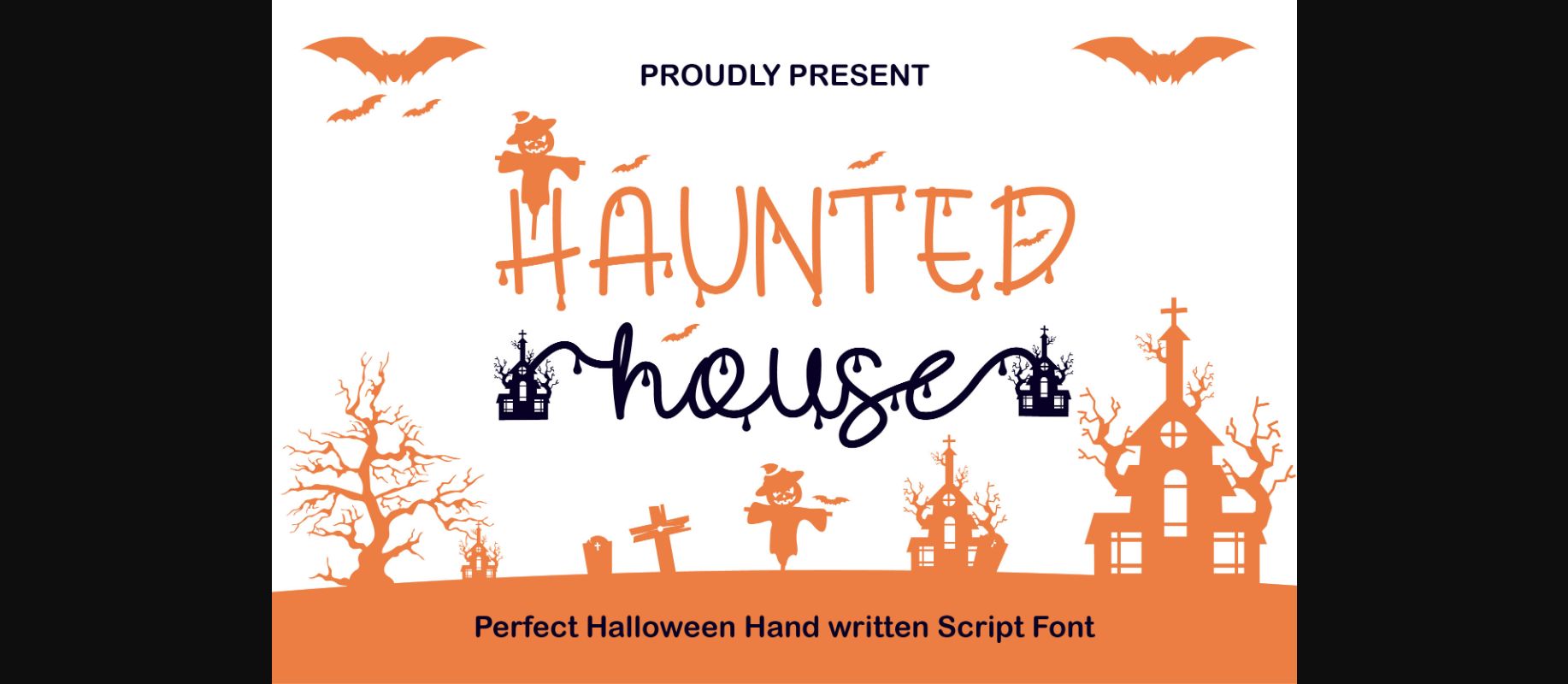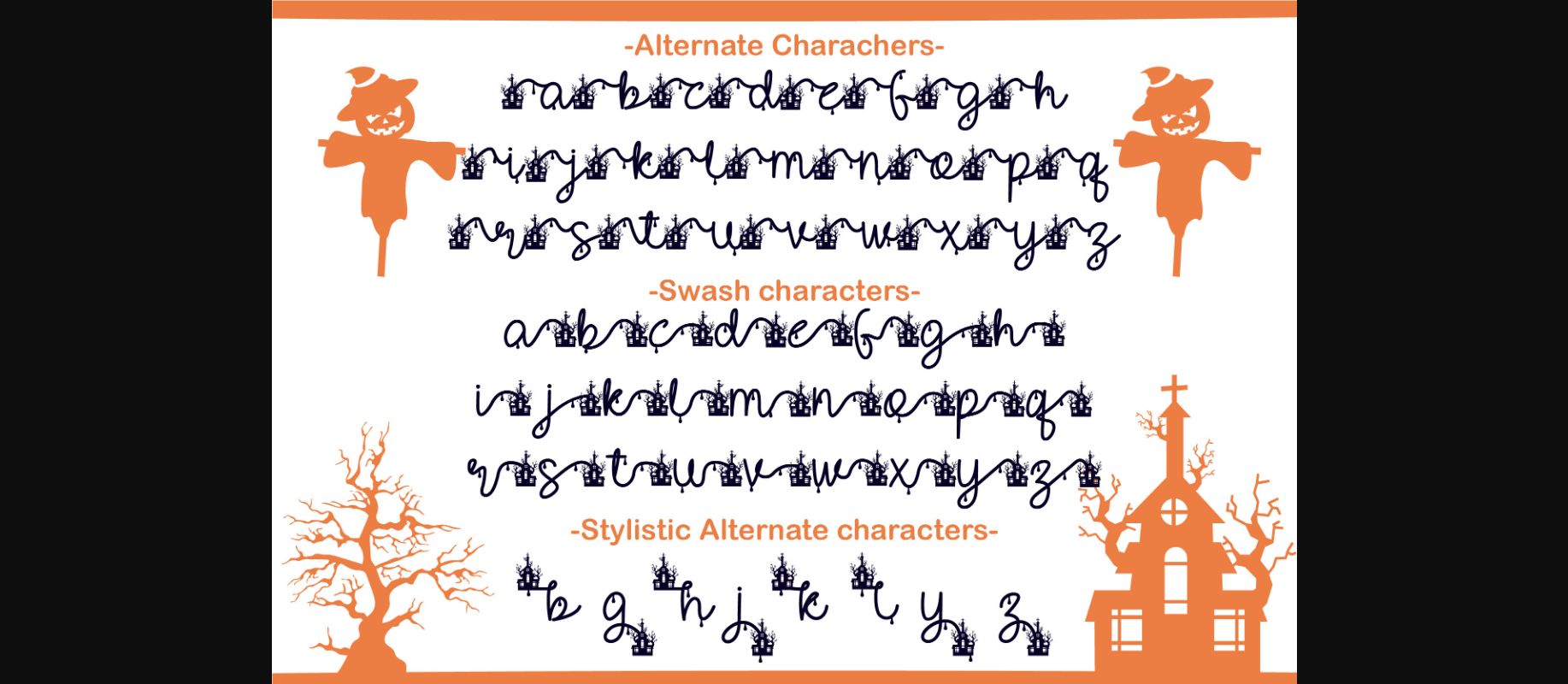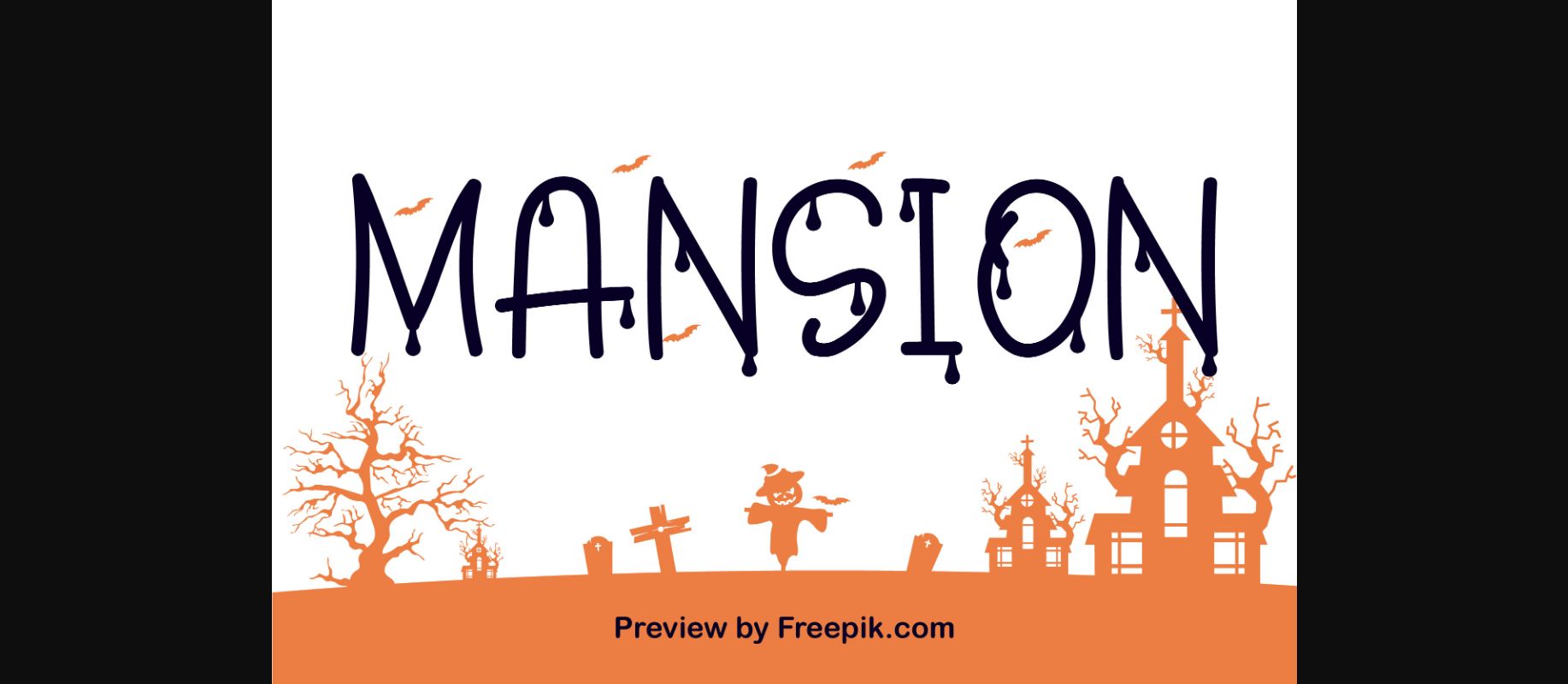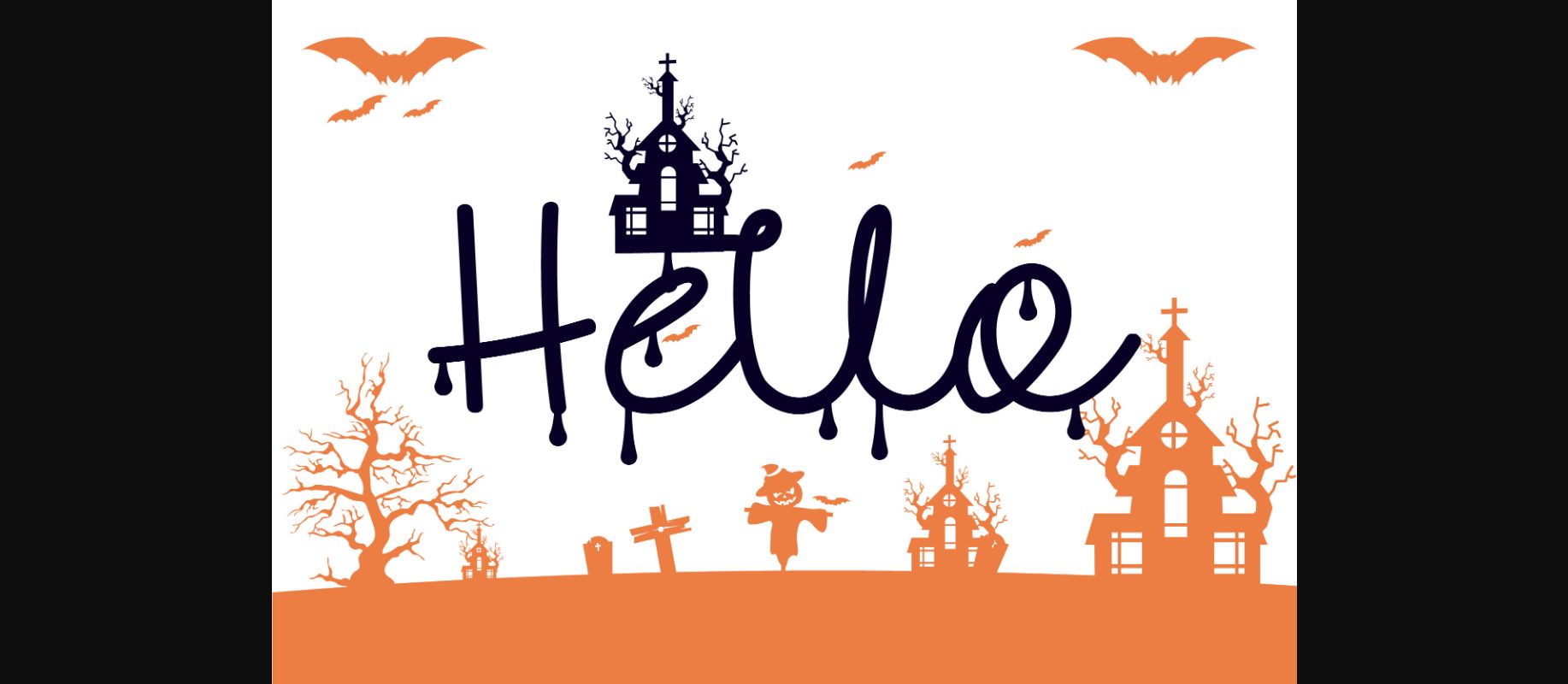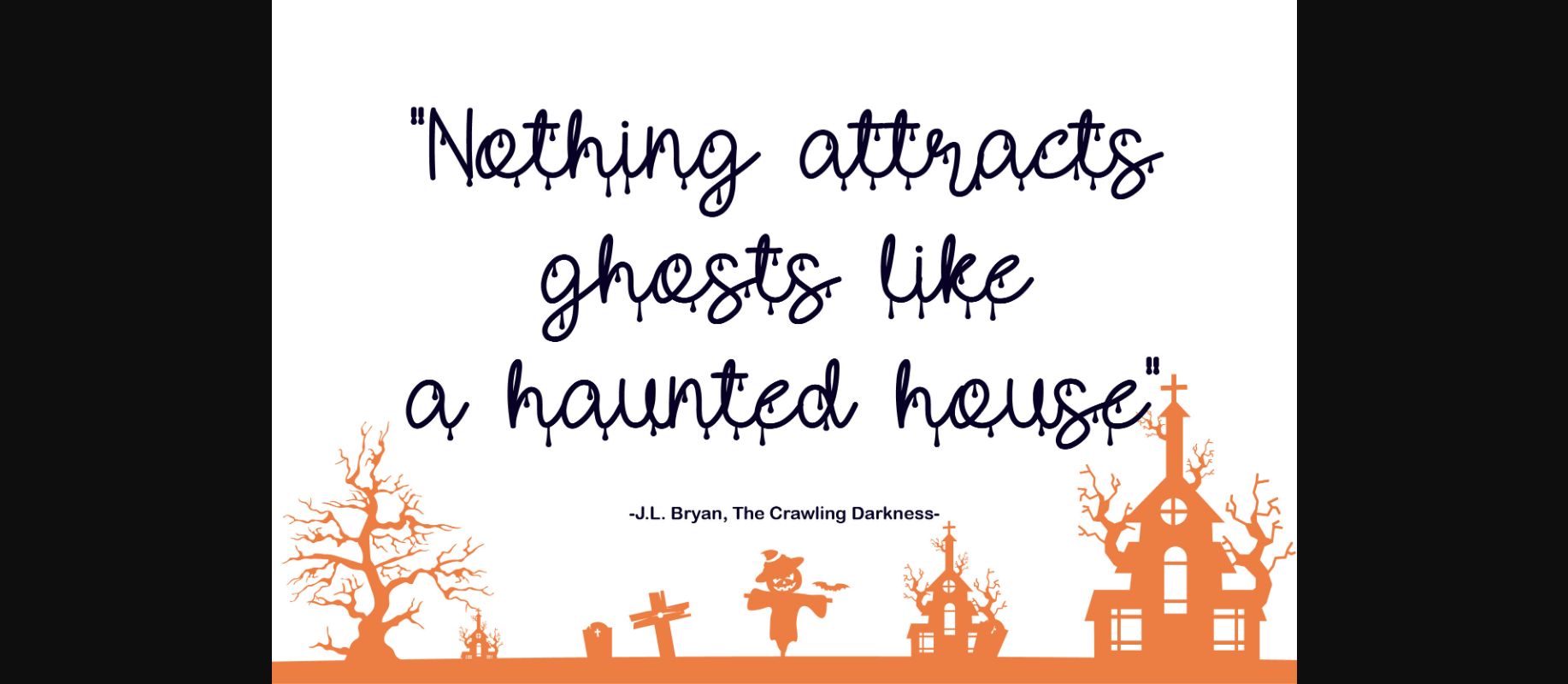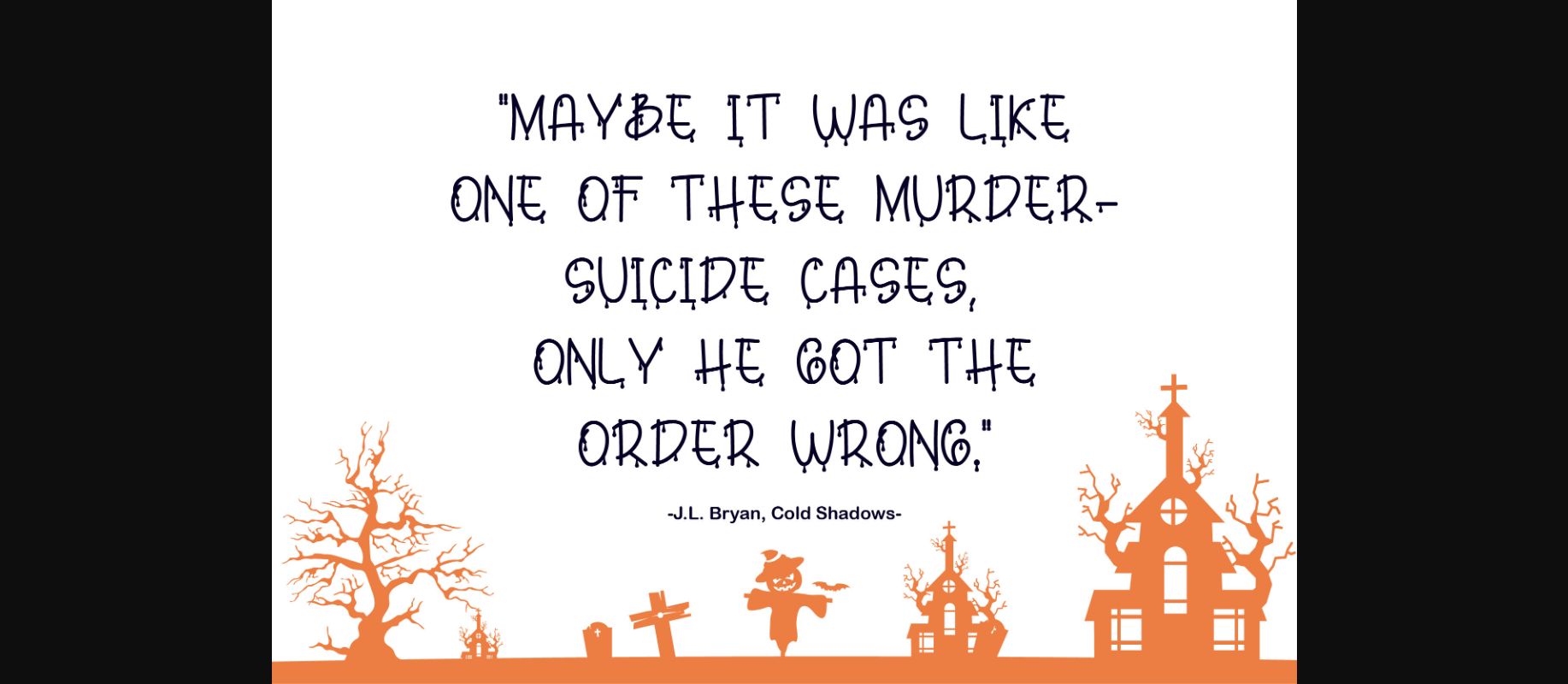
About Haunted House Font
Haunted House is a Handwritten and Display font with a spooky and cute decorative Halloween theme. Masterfully designed to become a true favorite, this font has the potential to bring each of your creative ideas.
Haunted House is a fresh and unique typeface suitable for Halloween -themed design purposes such as t-shirts, posters, banner and more.